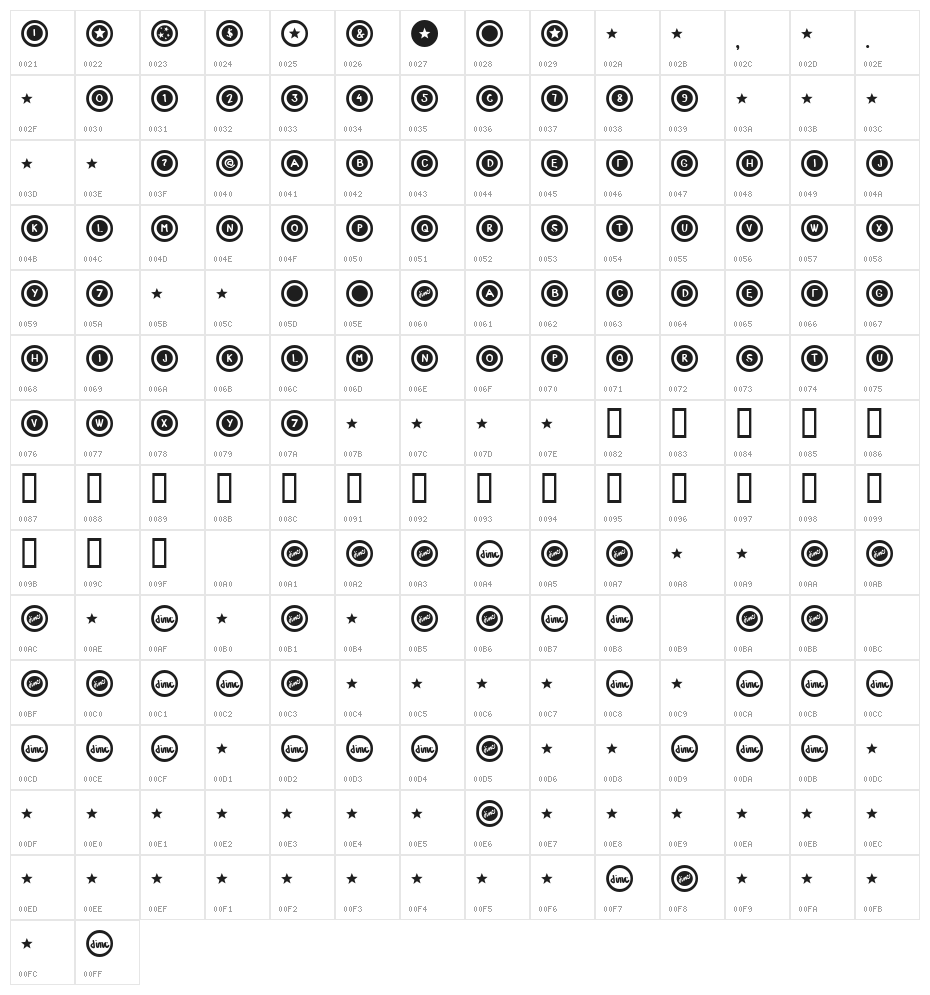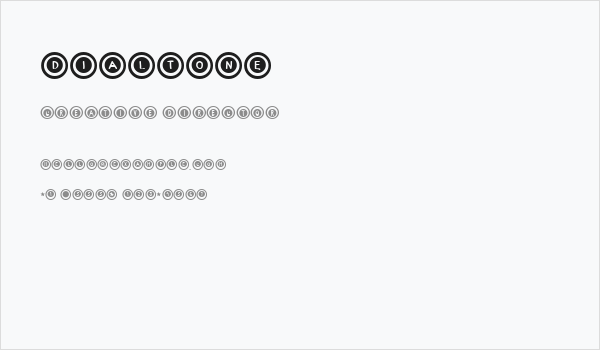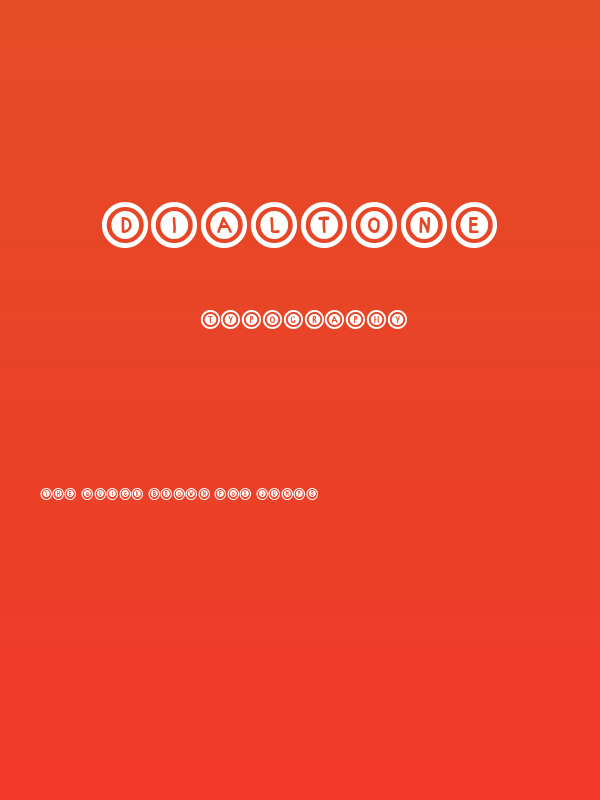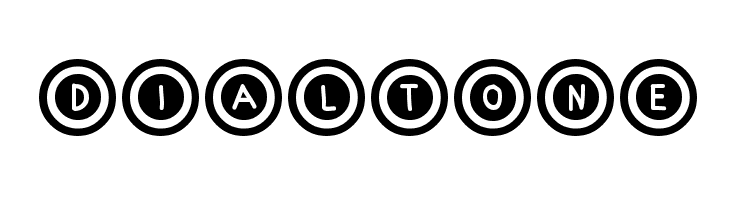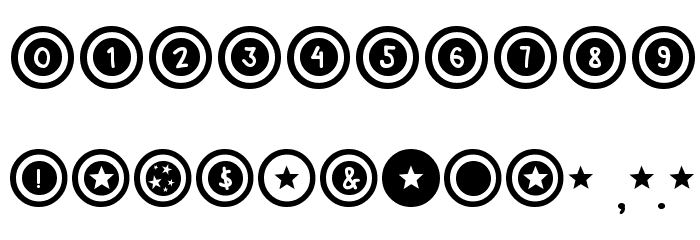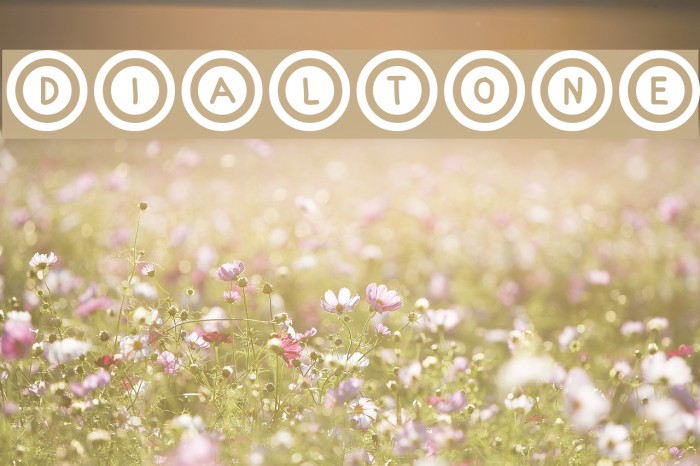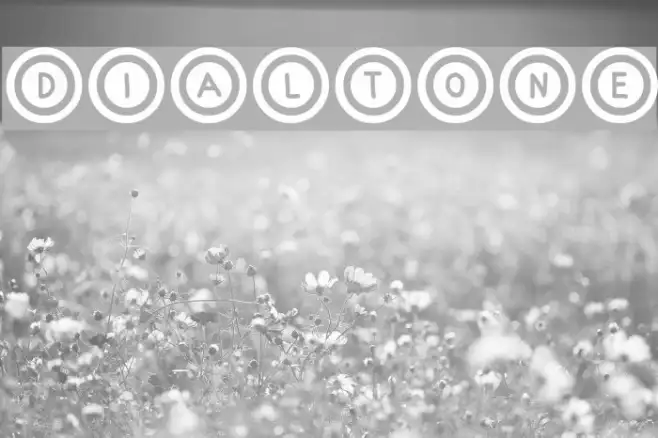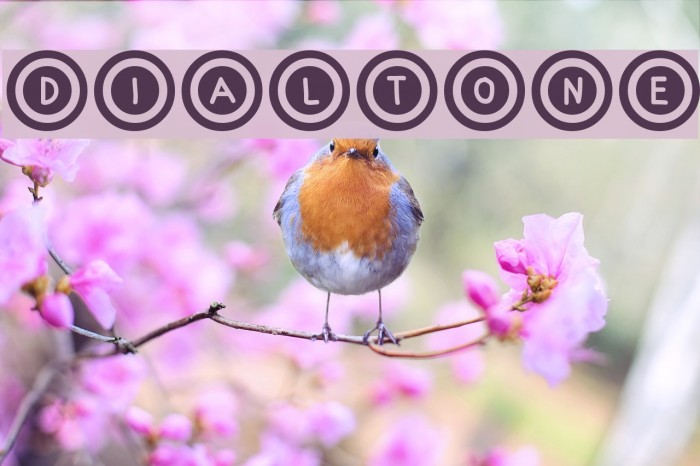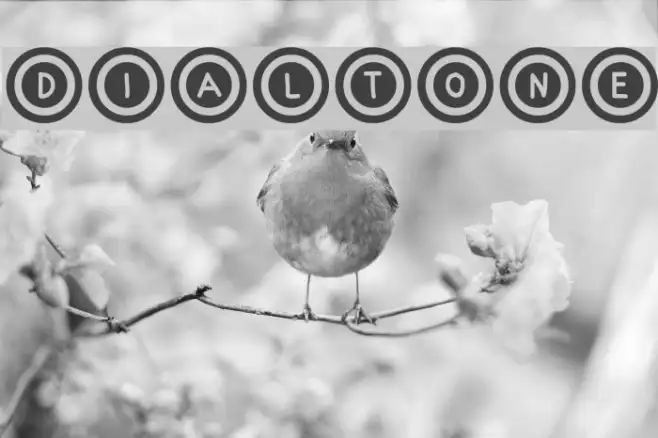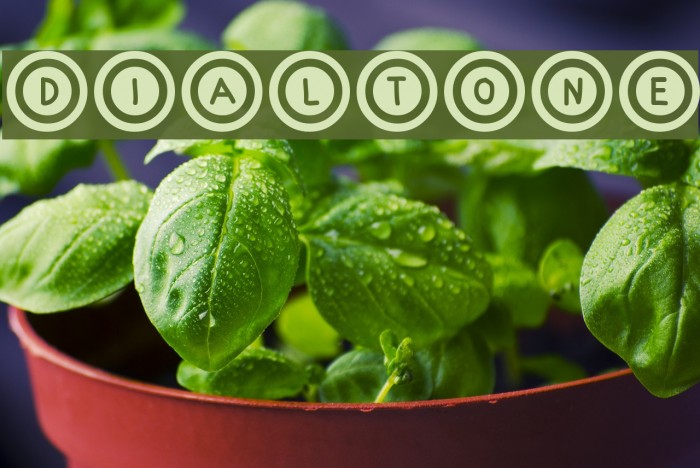
Dialtone Font
Dialtone Description
This font features bold, uppercase and lowercase letters, numbers, and special characters, each enclosed within a circular border. The design is highly geometric and symmetrical, with a strong emphasis on uniformity and clarity. The characters are sans-serif, contributing to a clean and modern appearance. The circular enclosures add a decorative element, making the font suitable for eye-catching designs. The consistent thickness of the lines and the enclosed style give it a distinctive, playful yet structured look, ideal for projects that require a bold statement.
| Use Case | Logos, Headlines, Posters |
| Proposed Projects | Ideal for logos, posters, signage, and branding materials where a bold and modern aesthetic is desired. |